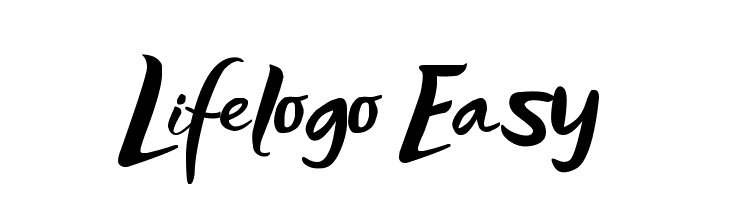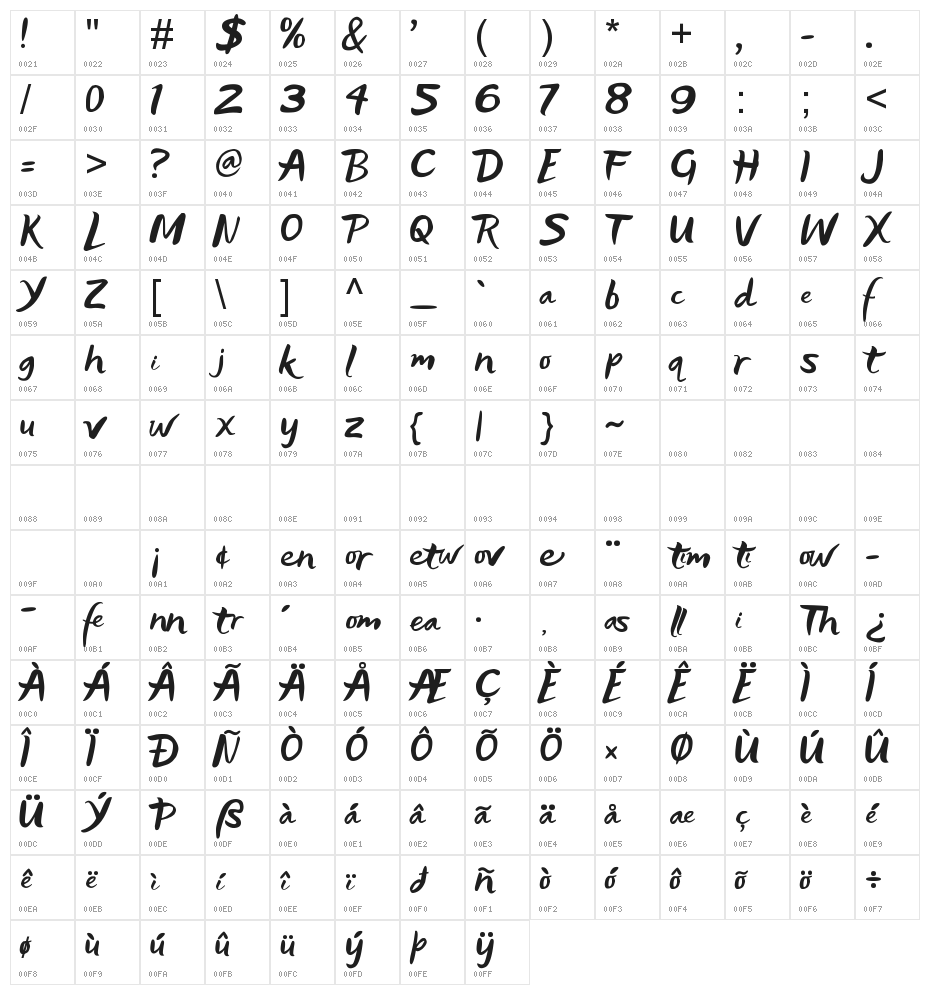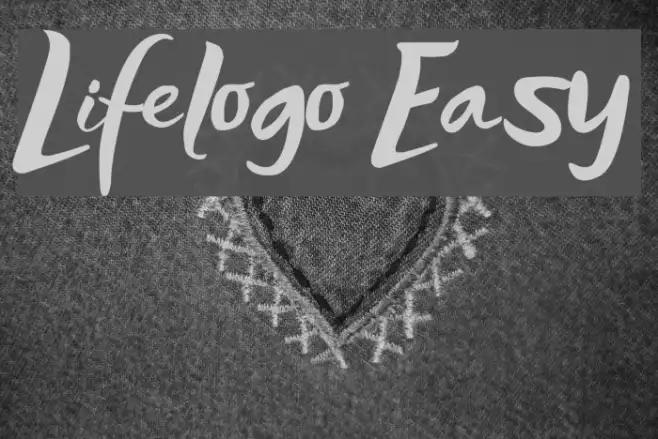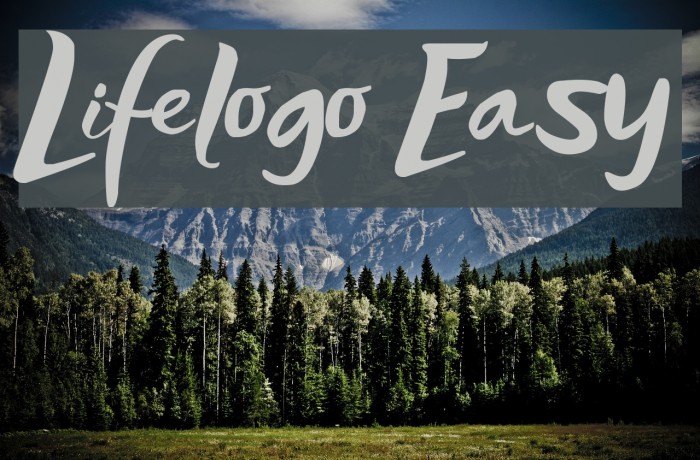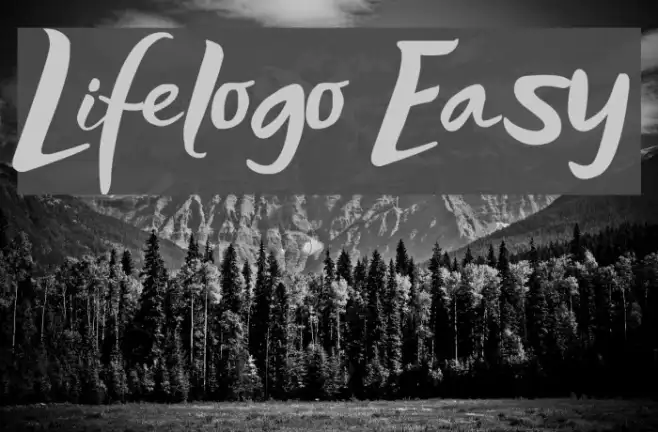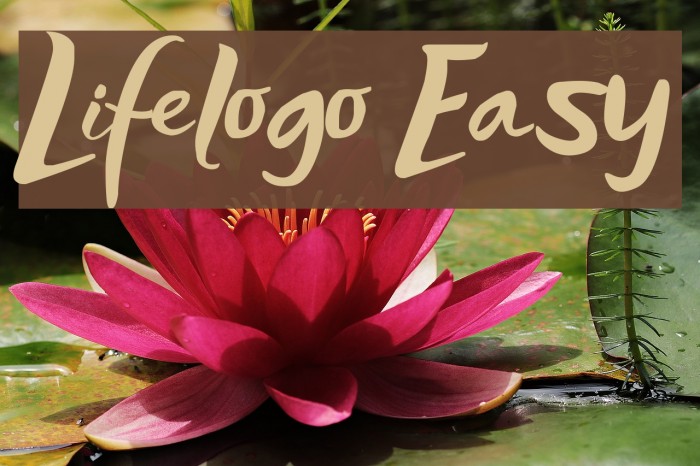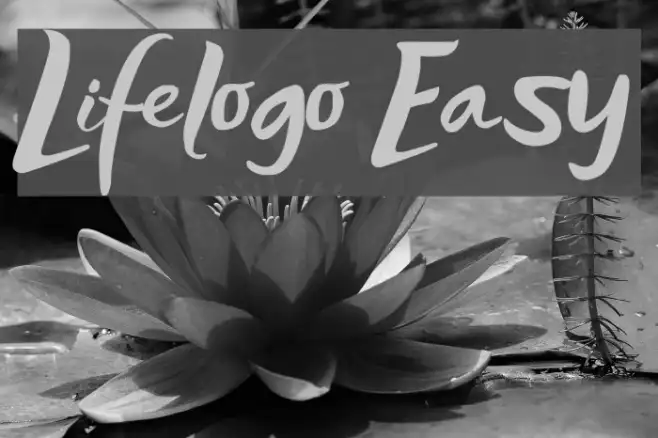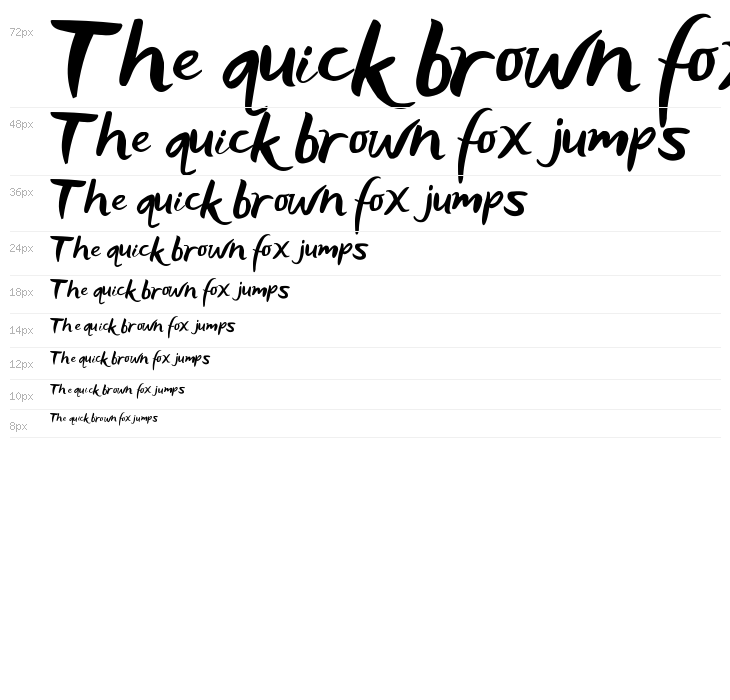
Lifelogo Easy Font
Lifelogo Easy Description
This font exhibits a dynamic and energetic style, characterized by its bold and fluid strokes. The uppercase letters are prominent and slightly slanted, giving a sense of motion and flair. The lowercase letters maintain a consistent flow, with some characters like 'g' and 'y' featuring distinctive loops and tails. The numerals are robust and maintain the same lively aesthetic, ensuring readability while adding a playful touch. Special characters are well-integrated, matching the overall style with their bold and expressive forms. This font is ideal for projects that require a sense of creativity and movement.
| Proposed Projects | Ideal for branding, logos, posters, and creative advertising campaigns. |